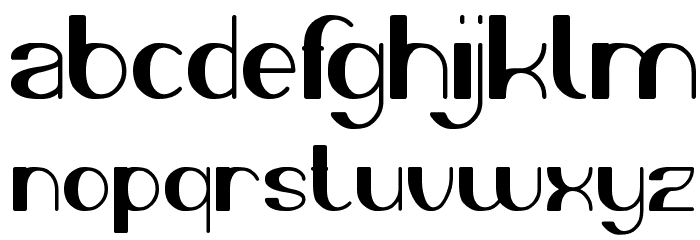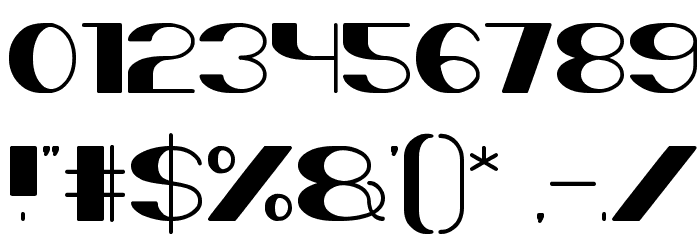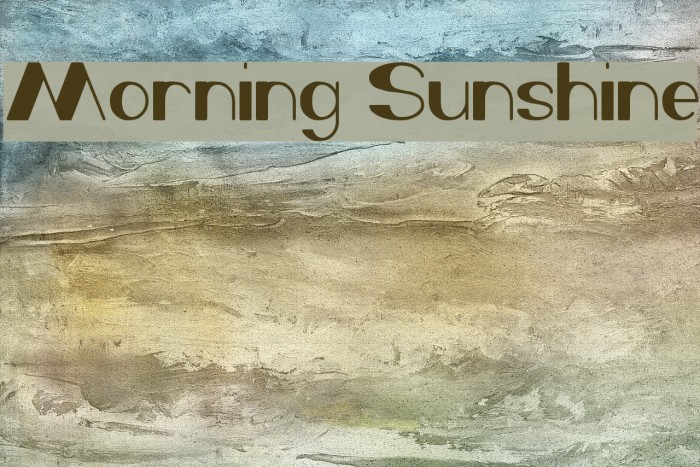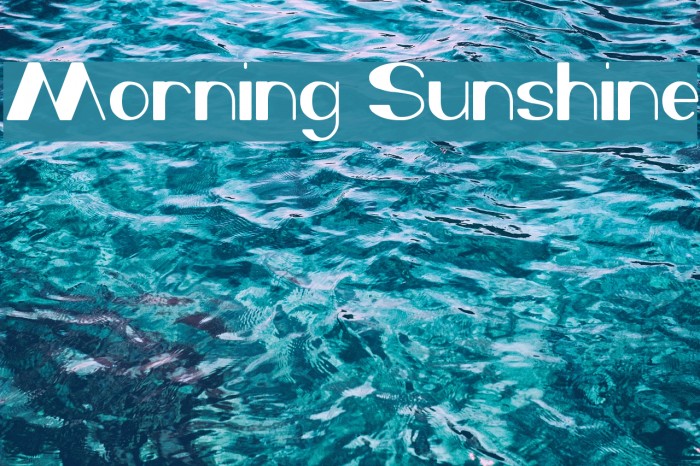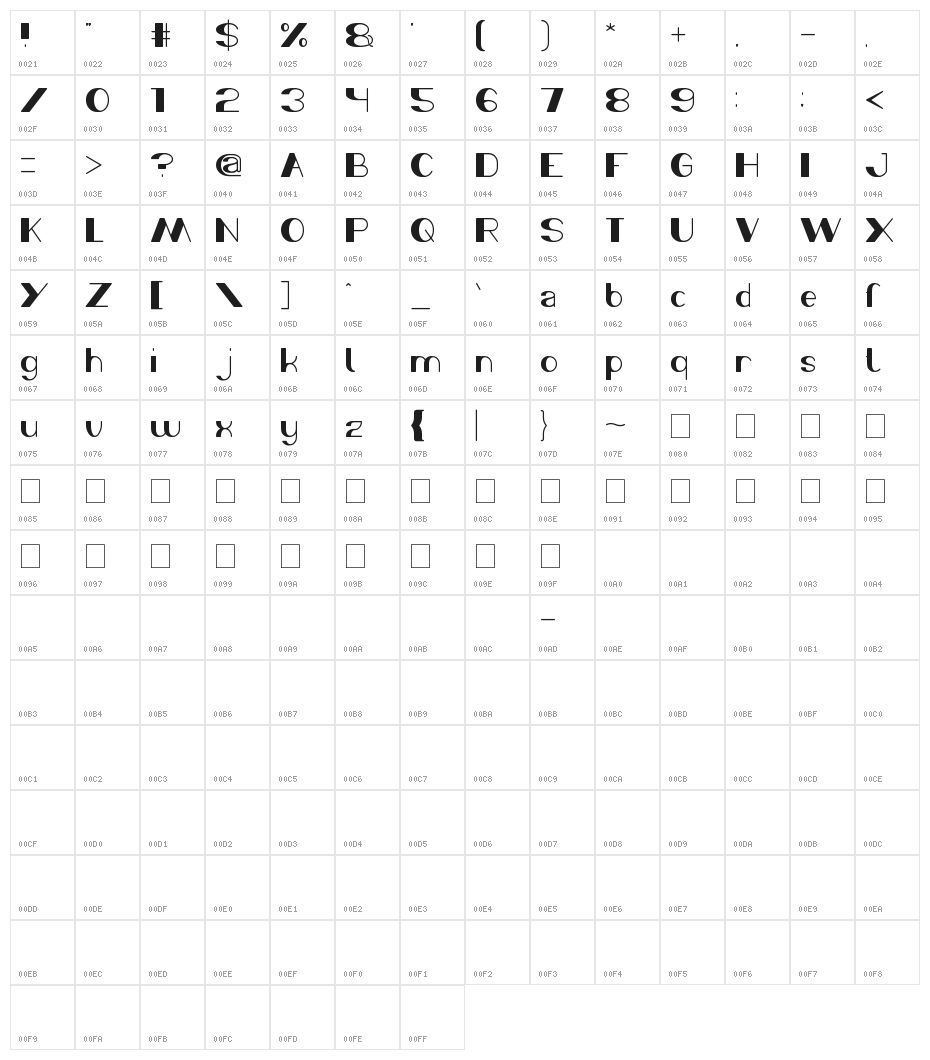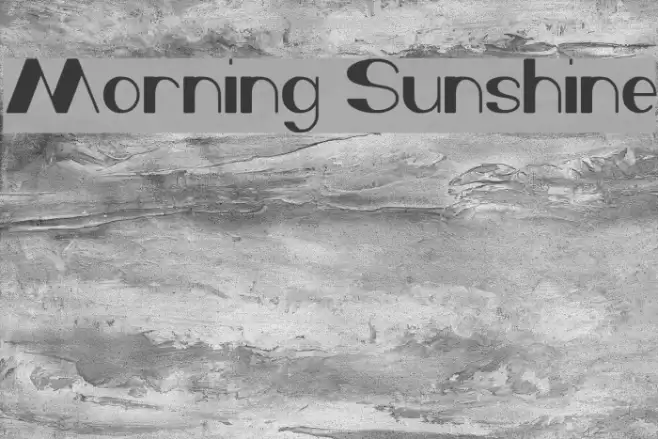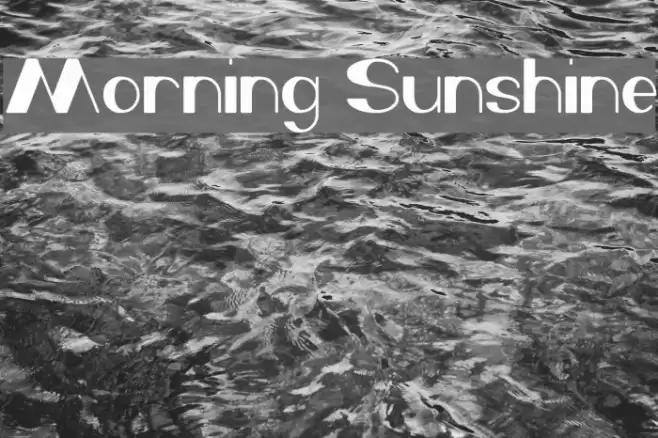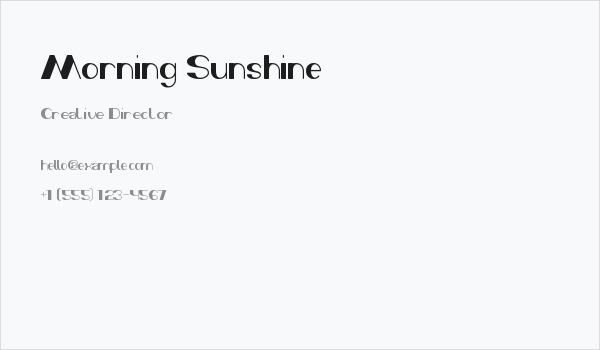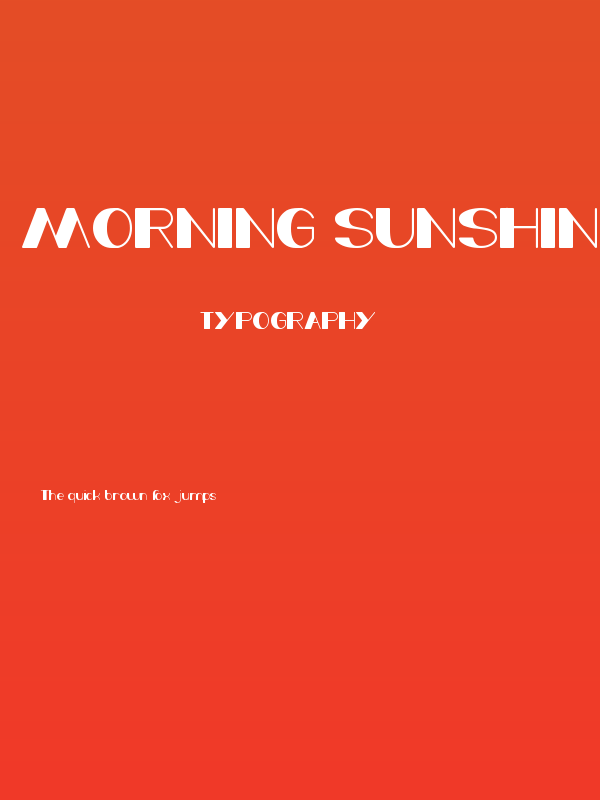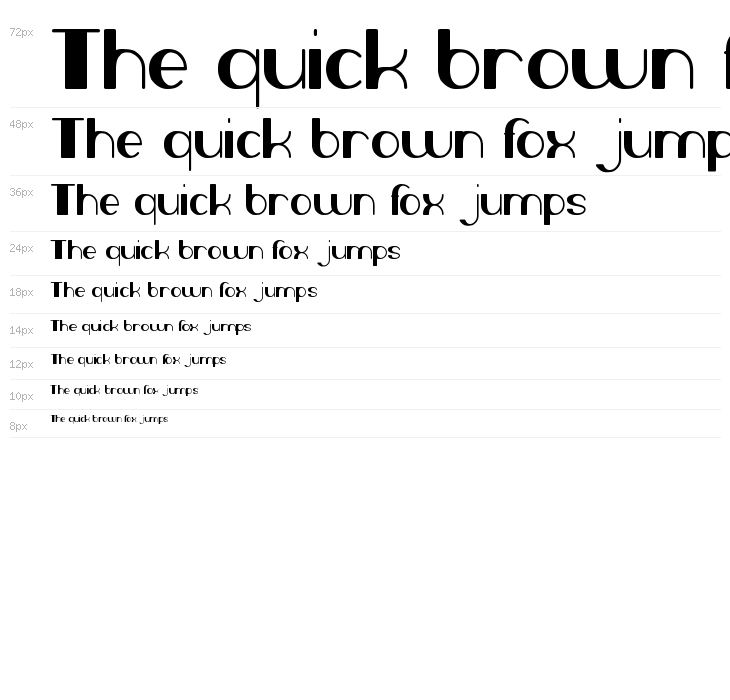
Morning Sunshine Font
This font features a modern and stylish design with a unique blend of geometric and organic shapes. The uppercase letters are bold and striking, with a mix of sharp angles and smooth curves that create a dynamic visual impact. The lowercase letters maintain a consistent style, offering a harmonious balance between readability and artistic flair. The numerals are distinct and easy to read, with a contemporary look that complements the overall design. Special characters are thoughtfully crafted, adding to the font's versatility. This font is perfect for projects that require a bold and modern aesthetic.
A modern, geometric font with bold, stylish characters and a unique blend of shapes.
- Proposed Projects: Ideal for branding, advertising, headlines, and modern design projects.
- Use Case: Headlines, Logos, Branding